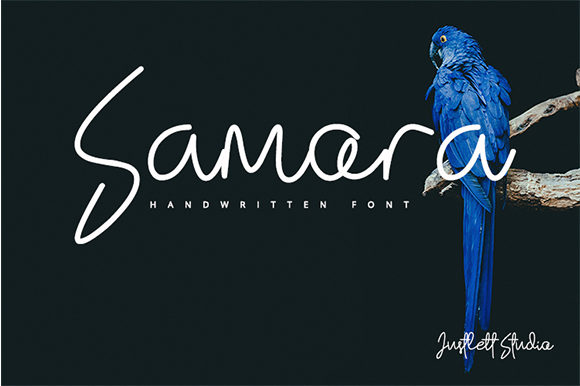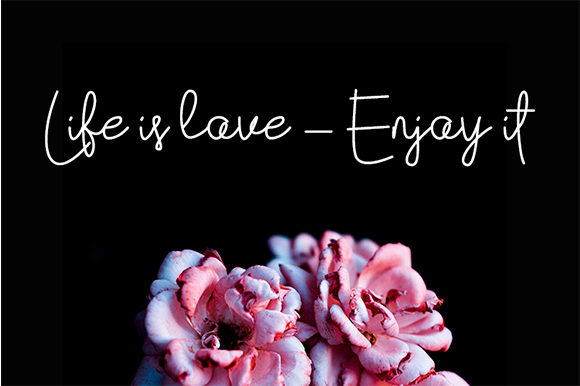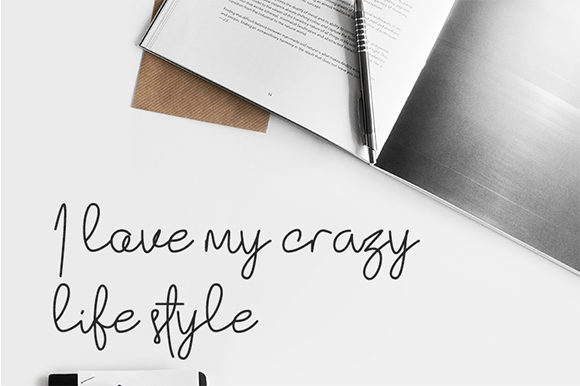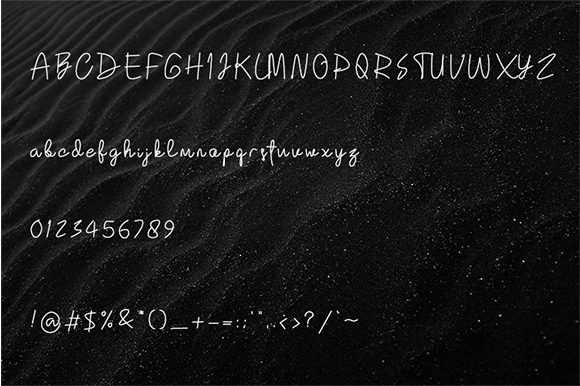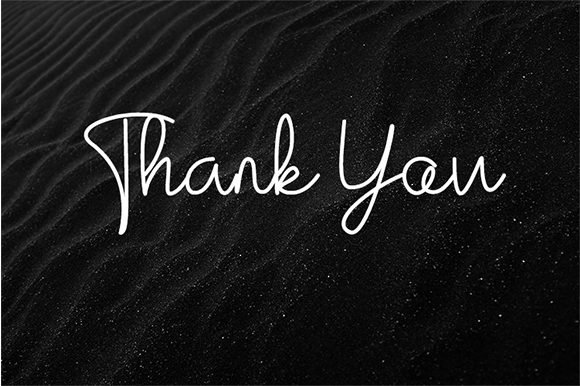
Samora Font
About Samora Font
Samora is a beautiful and charming handwritten font with a cool twist. Use it to add a personal flavor to any crafting idea!